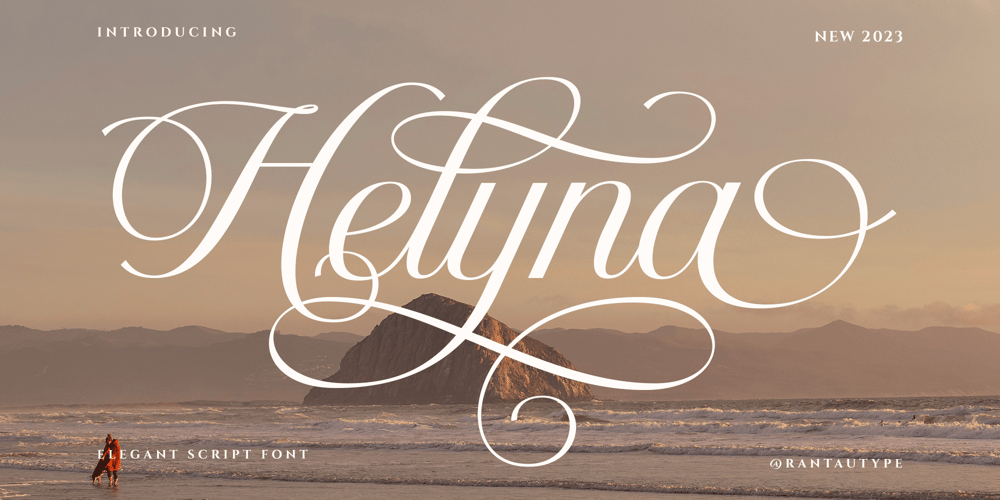
Helyna Font Family was designed by Yudi Pratama Chandra and published by RantauType. Helyna contains 1 styles and family package options. Helyna is beautiful script font which can be interpreted professional with stylish and soft curve. We keep this font looks feminine, girly, modern, minimalist, elegant, readable, stylish, catchy and easy to use. Helyna come with ligature, alternate and multilingual support.Helyna is a beautiful choice for any creative endeavor, chic, lifestyle design such as logos, title, watermark on photography, cover, branding, display and magazine, wedding event, quotes, album cover, business card, corporate, business project and many other design project. Helyna here to make your work to high level!!!What you have: Standar character A-Z and a-z Numberial and Functional Ligature and alternate Works on PC & Mac Simple installations Accessible in Adobe Illustrator, Adobe Photoshop, Adobe InDesign, even work on Microsoft Word. PUA Encoded Characters – Fully accessible without additional design software. Fonts include Multilingual Support for: Afrikaans, Albanian, Asu, Basque, Bemba, Bena, Breton, Chiga, Cornish, Dutch, English, Estonian, Filipino, Finnish, Friulian, Galician, Gusii, Indonesian, Irish, Italian, Kabuverdianu, Kalenjin, Kinyarwanda, Luo, Luxembourgish, Luyia, Machame, Makhuwa-Meetto, Makonde, Malagasy, Manx, Morisyen, North, Ndebele, Nyankole, Oromo, Portuguese, Quechua, Romansh, Rombo, Rundi, Rwa, Samburu, Sango, Sangu, Scottish, Gaelic, Sena, Shambala, Shona, Soga, Somali, Spanish, Swahili, Swedish, Swiss, German.Thank you for your purchase!Hope you enjoy with our font!